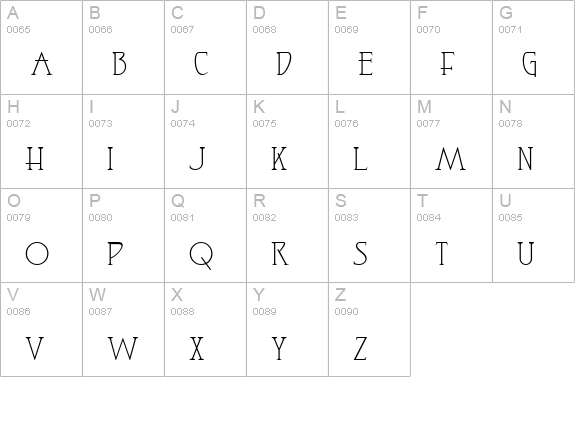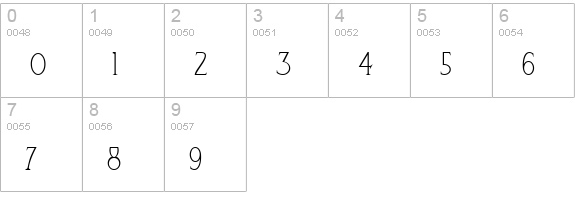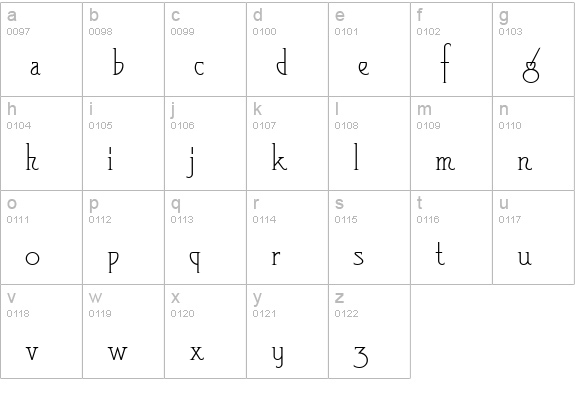
SophisticatedLadyNF Medium is a balanced, medium-weight variant in the SophisticatedLadyNF typeface family \xE2\x80\x94 well suited to sub-headlines, navigation, and balanced editorial work.
SophisticatedLadyNF Medium font exudes an air of elegance and refinement, making it the perfect choice for projects that require a touch of sophistication. This font effortlessly combines classic elements with a modern twist, resulting in a truly timeless design. The medium weight strikes a perfect balance, allowing for clear and legible text while maintaining a sense of elegance. With its clean lines and graceful curves, SophisticatedLadyNF Medium font is versatile and can be used across a wide range of design projects. From editorial layouts to branding materials, this font adds a touch of sophistication and class to any composition. One of the best features of SophisticatedLadyNF Medium font is that it is freely available to download at FontsMarket.com. This means that you can elevate your designs without breaking the bank. Whether you are a professional designer or a hobbyist, this font is a valuable addition to your typographic toolkit. Impress your clients and captivate your audience with the timeless beauty of SophisticatedLadyNF Medium font. Its effortlessly sophisticated style is sure to make a lasting impression. So why wait? Head over to FontsMarket.com and download this stunning font today, and let your creativity soar.